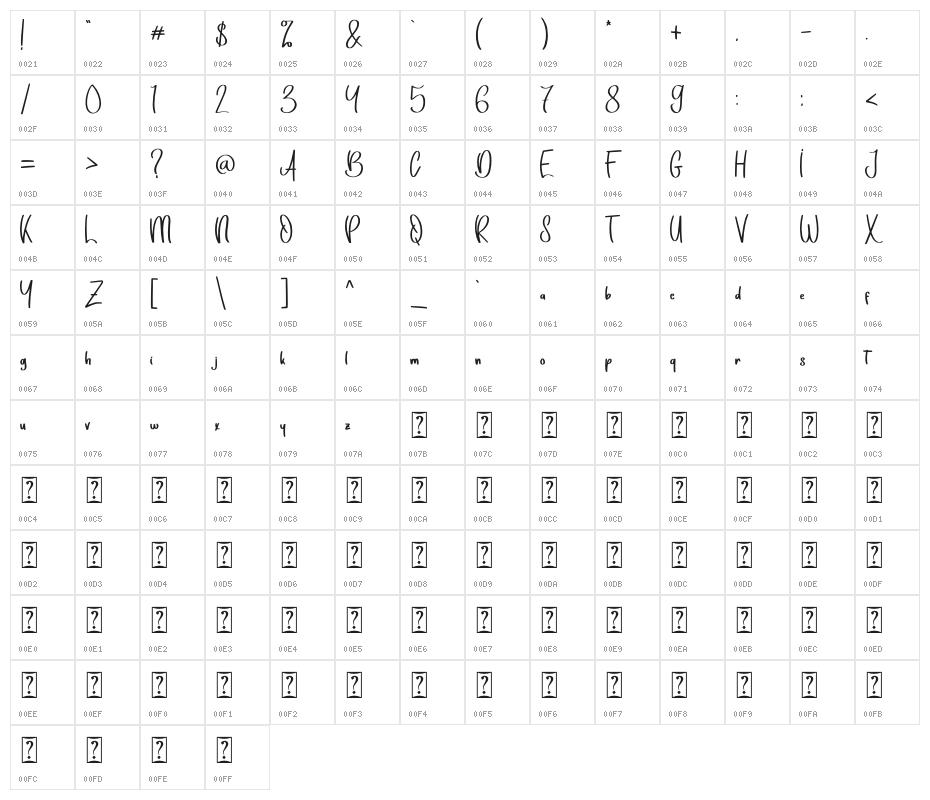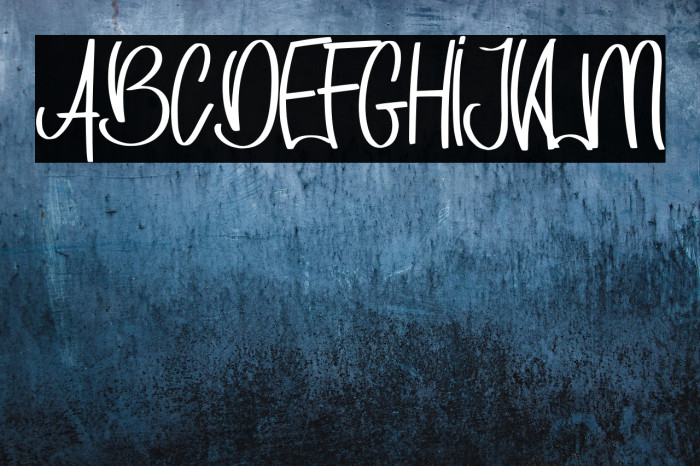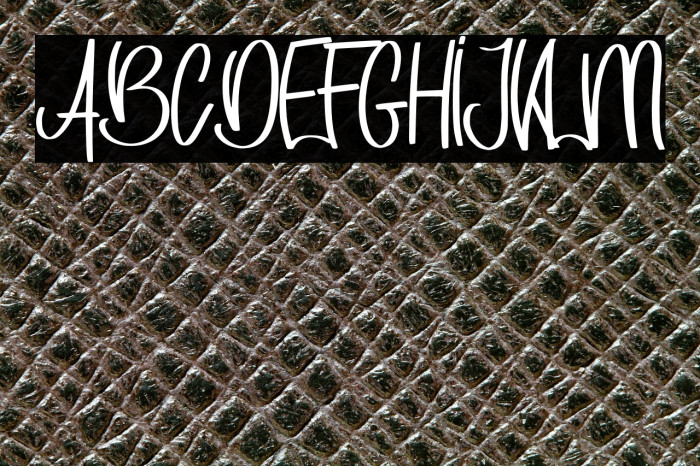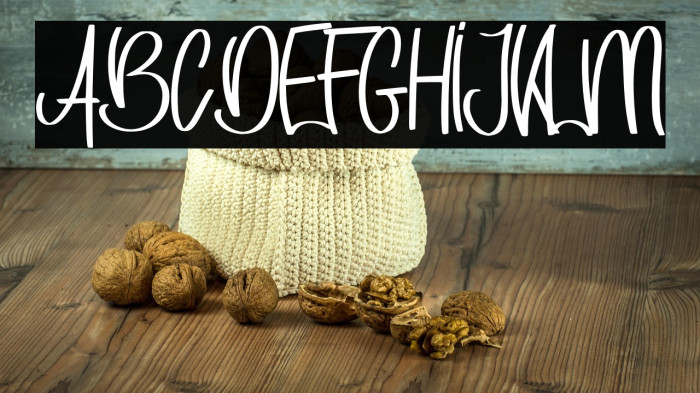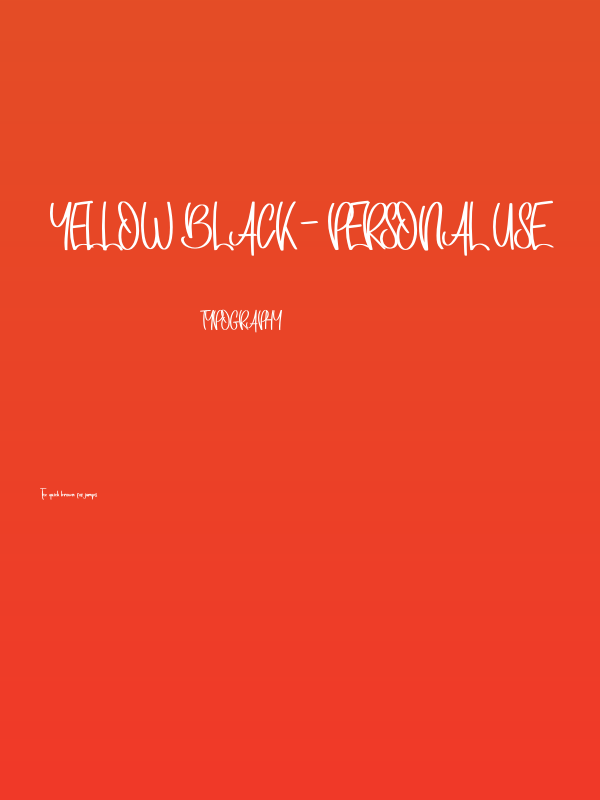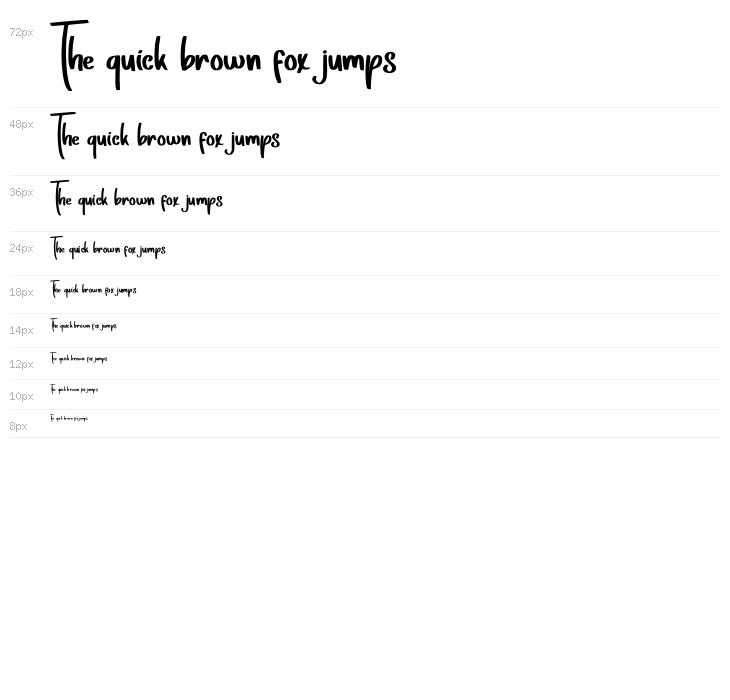
Yellow Black - Personal Use Font
Yellow Black - Personal Use Description
A playful and energetic handwritten font with a casual, flowing style. The letters are tall and narrow, featuring a mix of thick and thin strokes that add a dynamic feel.
| Overall Style | Playful, Casual |
| Proposed Projects | Greeting cards, invitations, posters, and playful branding. |